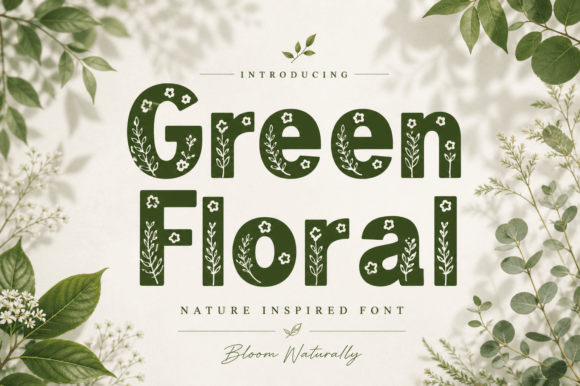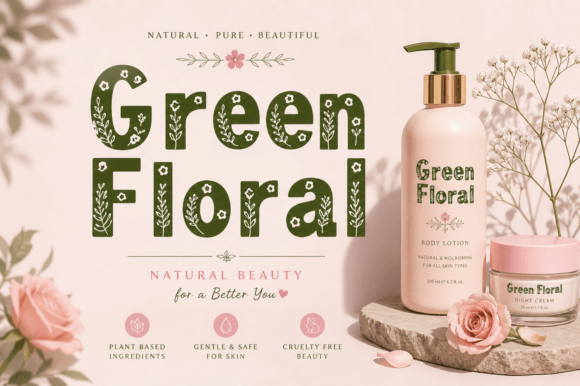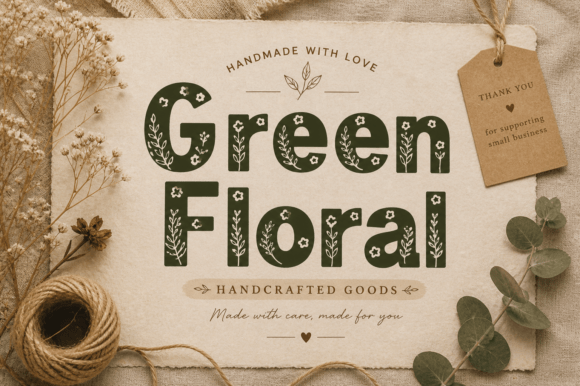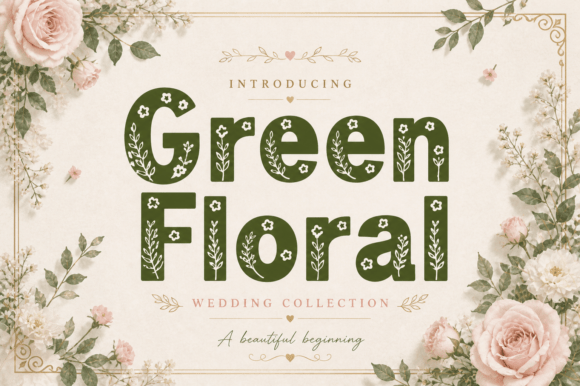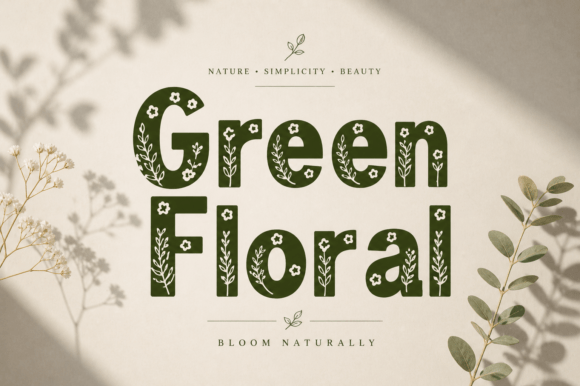
Introducing Green Floral Font: A Charming Decorative Display Font Inspired by Nature
Are you looking for a font that captures the essence of nature and botanical beauty? Look no further than Green Floral Font, a charming decorative display font that brings a fresh, organic, and eye-catching touch to your designs. Inspired by the delicate beauty of flowers and leaves, Green Floral is perfect for designers who want to add a soft, natural, and creative flair to their projects.
The Unique Features of Green Floral Font
Green Floral Font boasts bold letterforms filled with intricate floral and leaf illustrations, creating a unique and artistic look that stands out from traditional fonts. Each letter is carefully crafted to resemble a miniature piece of art, making it perfect for designs that require a touch of elegance and personality. The font’s nature-inspired style is ideal for projects that need a soft, natural, and creative touch, such as wedding invitations, eco branding, product packaging, greeting cards, social media graphics, stickers, or logo concepts.
Green Floral Font is a versatile font that can be used for a wide range of design projects. Its delicate and artistic style makes it perfect for:
• Wedding Invitations: Add a touch of romance and elegance to your wedding invitations with Green Floral Font. The font’s floral illustrations and bold letterforms create a beautiful and eye-catching design that sets the tone for a special day.
• Eco Branding: Green Floral Font is perfect for eco-friendly brands that want to convey a sense of natural and organic values. The font’s nature-inspired style helps to create a brand identity that is fresh, sustainable, and environmentally conscious.
• Product Packaging: Make your product packaging stand out with Green Floral Font. The font’s unique and artistic style adds a touch of personality to your packaging design, making it more attractive and eye-catching.
• Greeting Cards: Create beautiful and heartfelt greeting cards with Green Floral Font. The font’s delicate floral illustrations and bold letterforms add a touch of elegance and sophistication to your card designs.
• Social Media Graphics: Use Green Floral Font to create stunning social media graphics that stand out from the crowd. The font’s fresh and artistic style is perfect for creating engaging and shareable content.
• Stickers and Logo Concepts: Green Floral Font is also ideal for designing stickers and logo concepts. The font’s bold letterforms and delicate illustrations create a unique and eye-catching design that can be used to promote your brand or product.
Suitable for Both Print and Digital Use
Green Floral Font is a versatile font that can be used for both print and digital projects. Its high-quality design ensures that it looks great in various resolutions and sizes, making it perfect for:
• Print Materials: Use Green Floral Font for print materials such as brochures, flyers, posters, and business cards.
• Digital Materials: Use Green Floral Font for digital materials such as social media graphics, website headers, and email newsletters.
Why Choose Green Floral Font?
Green Floral Font is a unique and artistic font that offers a range of benefits for designers and crafters. Here are just a few reasons why you should choose Green Floral Font for your next project:
• Unique and Eye-Catching Design: Green Floral Font boasts a unique and eye-catching design that stands out from traditional fonts.
• Nature-Inspired Style: The font’s nature-inspired style makes it perfect for projects that need a soft, natural, and creative touch.
• Versatile: Green Floral Font can be used for a wide range of design projects, from wedding invitations to eco branding.
• High-Quality Design: The font’s high-quality design ensures that it looks great in various resolutions and sizes.
Font Name Green Floral Font
Author Wow Magic
Green Floral Font is a charming decorative display font that brings a fresh, organic, and eye-catching touch to your designs. With its unique and artistic style, nature-inspired design, and versatility, Green Floral Font is perfect for designers who want to add a soft, natural, and creative flair to their projects. Whether you’re designing wedding invitations, eco branding, product packaging, or social media graphics, Green Floral Font is the perfect choice for your next project.